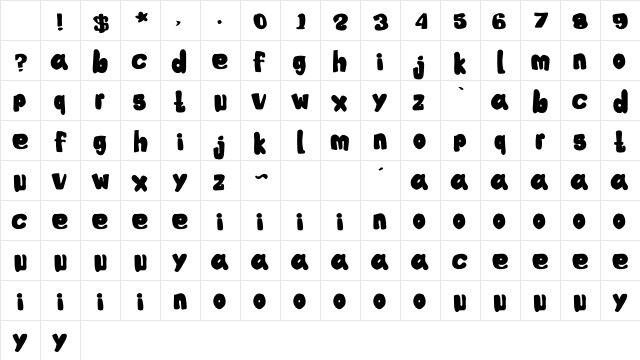
Welcome Cartoon has an approachable, lighthearted character - its loose, expressive forms are well-suited to children's content, casual branding, and fun-first design.
Font Pairing: Pairs well with a rounded or humanist sans for body copy, maintaining the friendly tone without relying on Welcome Cartoon to carry extended reading.
Pro Tip: Use Welcome Cartoon at larger display sizes where its expressive character can land. Pair with a clean, simple sans for body copy to maintain readability.